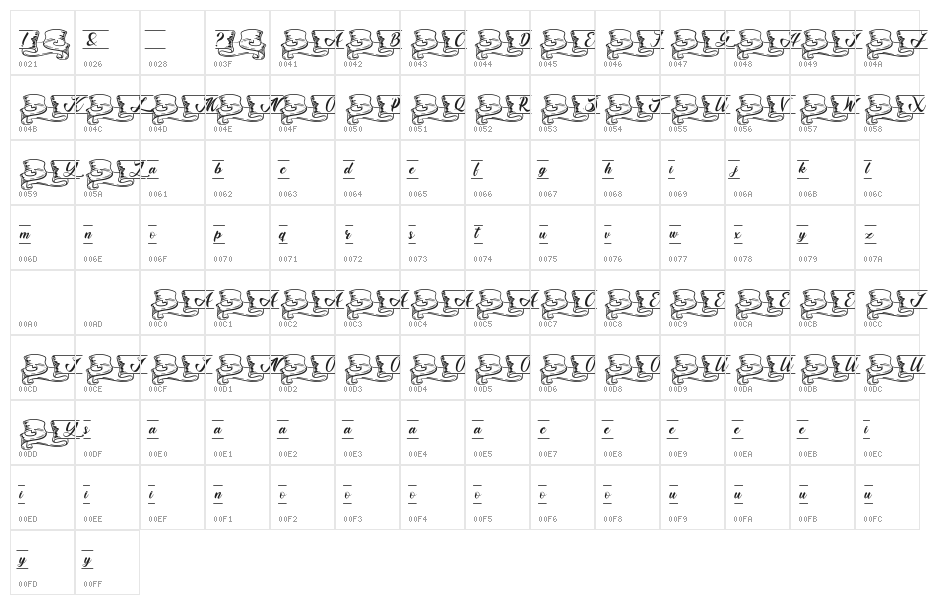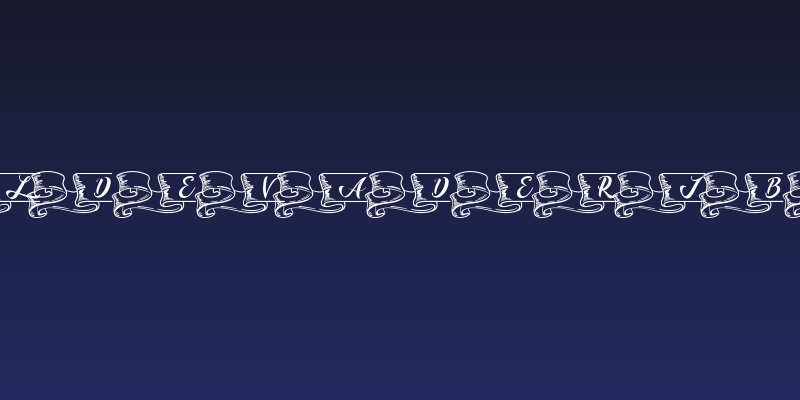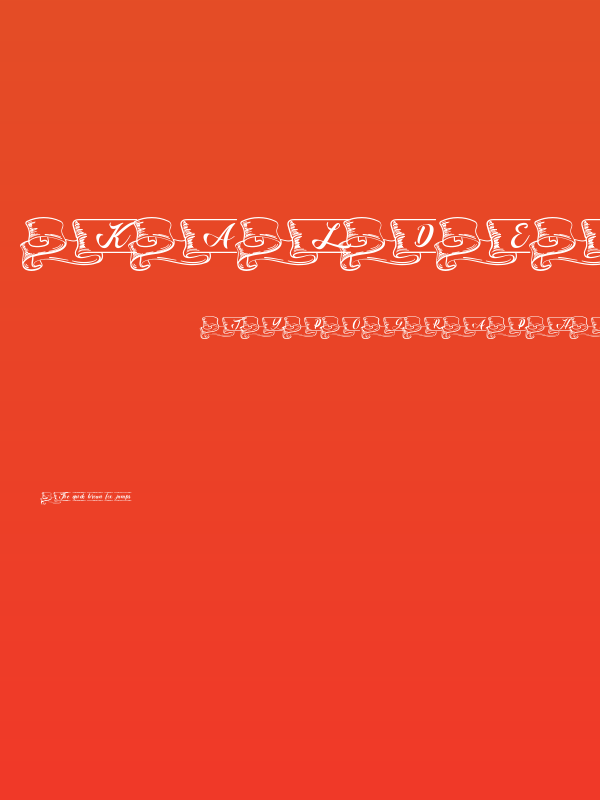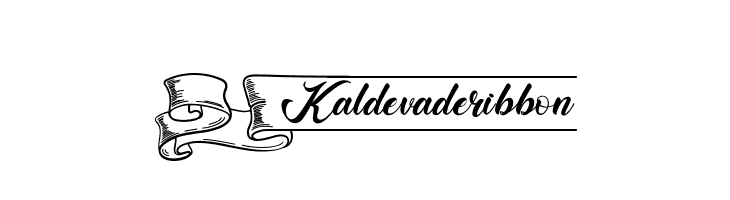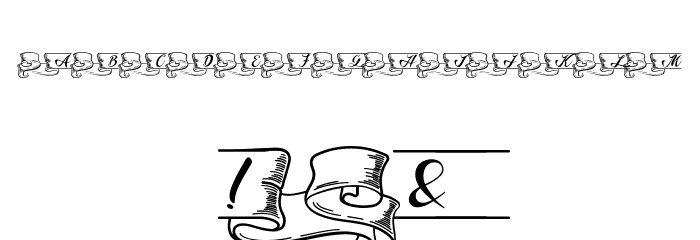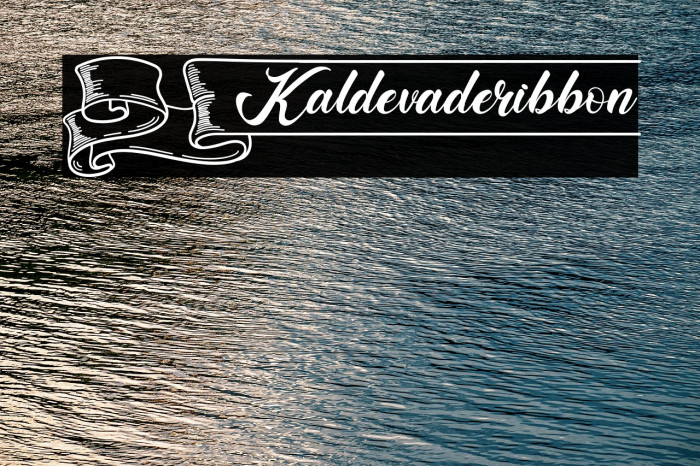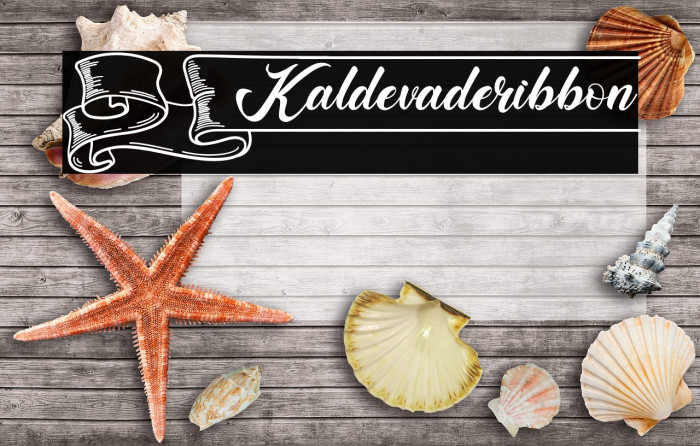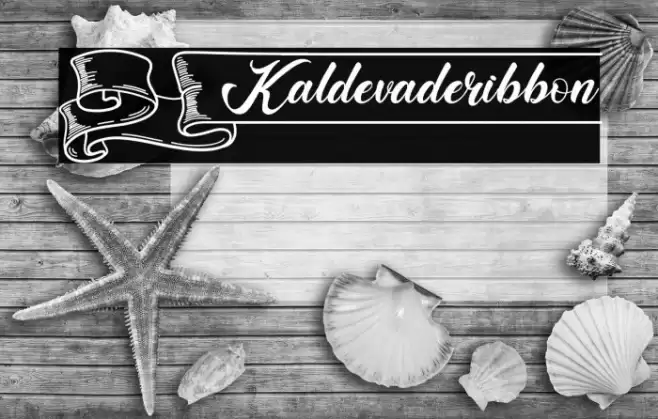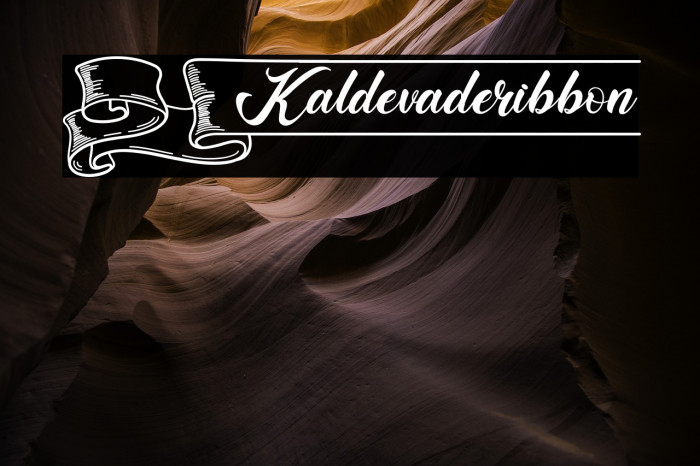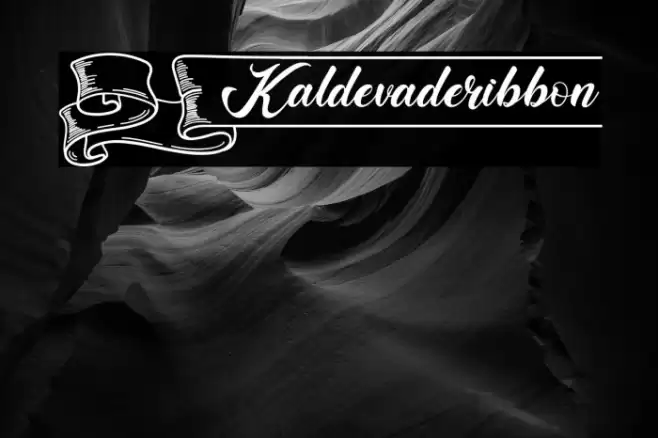
Kaldevaderibbon Font
Kaldevaderibbon Description
This font features a decorative and ornate style, reminiscent of vintage ribbon banners. Each character is elegantly crafted with a flowing script that mimics the curves and folds of a ribbon. The uppercase letters are particularly elaborate, with additional flourishes that enhance their visual appeal. The lowercase letters maintain a consistent style, offering a smooth and cohesive look. The numerals and special characters are equally detailed, ensuring a uniform appearance across all text. This font is ideal for projects that require a touch of elegance and sophistication, such as invitations, branding, or decorative headings.
| Overall Style | Vintage |
| Use Case | Headlines, Logos, Invitations |
| Proposed Projects | Ideal for wedding invitations, luxury branding, decorative headings, and vintage-themed designs. |